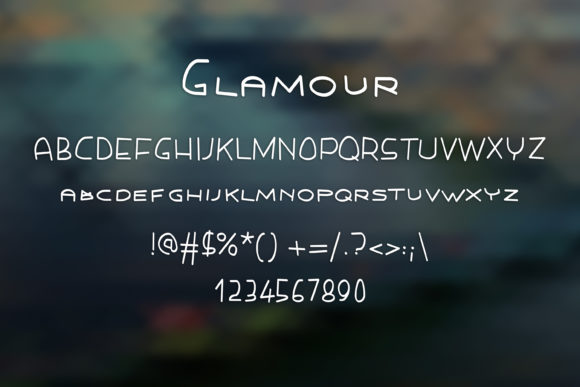
Glamour Font: Elevate Your Design Projects with Elegance and Authenticity
In the world of typography, a font can make or break a design project. A well-chosen font can add a touch of elegance, sophistication, and glamour to any visual creation. If you’re a designer, crafty DIY enthusiast, or simply someone who appreciates beautiful typography, you’re in luck. Introducing Glamour Font, a stunning display font that merges authenticity and elegance into one truly breathtaking design.
The Essence of Glamour Font
Glamour Font is a masterpiece of typographic design, carefully crafted to elevate any design project to the highest level. With its unique blend of classic and modern elements, this font exudes sophistication, luxury, and refinement. Whether you’re working on a branding project, creating social media graphics, or designing a wedding invitation, Glamour Font is the perfect choice.
Key Features of Glamour Font
- Authenticity and Elegance: Glamour Font boasts an authentic and elegant design that will add a touch of luxury to any project.
- Display Font: Designed specifically as a display font, Glamour Font is perfect for headlines, titles, and short text passages.
- Highly Versatile: With its clean and sophisticated design, Glamour Font can be used in a wide range of design projects, from branding and advertising to packaging and more.
- Easy to Read: Despite its elegant and refined design, Glamour Font remains highly legible, making it perfect for use in both digital and print materials.
What Makes Glamour Font Stand Out?
In a crowded world of typography, Glamour Font stands out from the rest. Here are just a few reasons why:
- Unique Character: Glamour Font has a distinct character that sets it apart from other fonts on the market. Its blend of classic and modern elements creates a truly unique look that’s both elegant and sophisticated.
- Attention to Detail: The designers behind Glamour Font have paid meticulous attention to detail, ensuring that every aspect of the font is perfect, from the letterforms to the spacing and kerning.
- Flexibility: Glamour Font can be used in a wide range of design projects, from luxurious branding campaigns to beautiful wedding invitations and more.
How to Use Glamour Font in Your Design Projects
Using Glamour Font in your design projects is easy. Here are a few tips to get you started:
- Pair it with Other Fonts: Glamour Font pairs beautifully with other fonts, adding an extra touch of elegance and sophistication to your designs.
- Experiment with Colors: Glamour Font looks stunning in a range of colors, from metallic gold and silver to rich jewel tones and classic black and white.
- Use it for Headlines and Titles: Glamour Font is specifically designed as a display font, making it perfect for use in headlines, titles, and short text passages.
In conclusion, Glamour Font is a truly stunning display font that merges authenticity and elegance into one breathtaking design. With its unique character, attention to detail, and flexibility, Glamour Font is the perfect choice for designers, crafty DIY enthusiasts, and anyone looking to elevate their design projects to the highest level. So why wait? Try Glamour Font today and experience the power of beautiful typography for yourself.